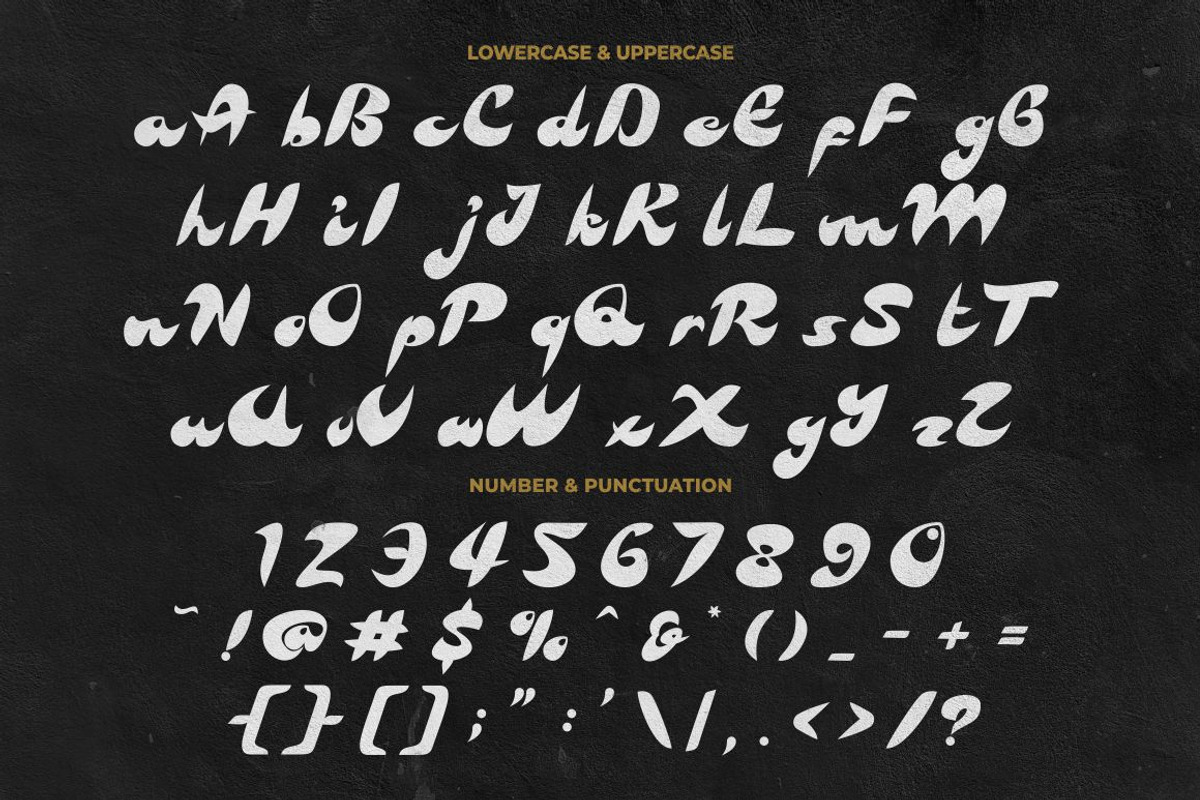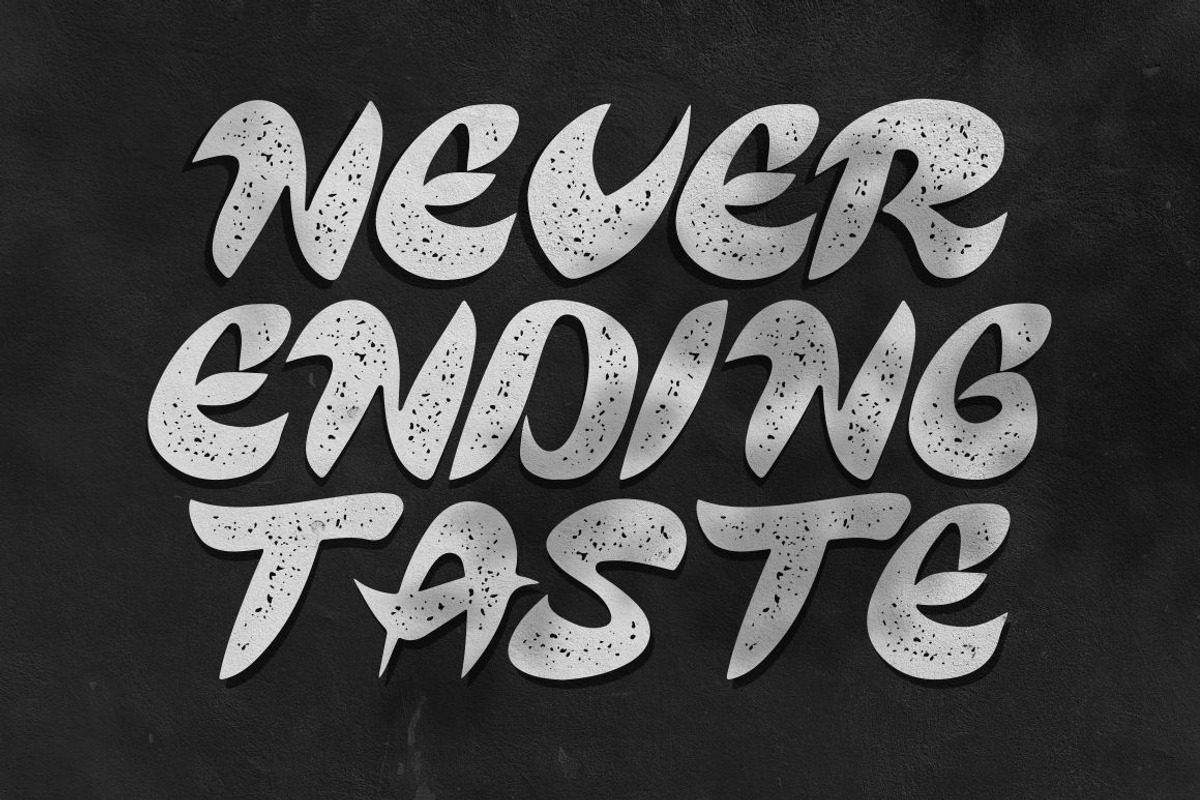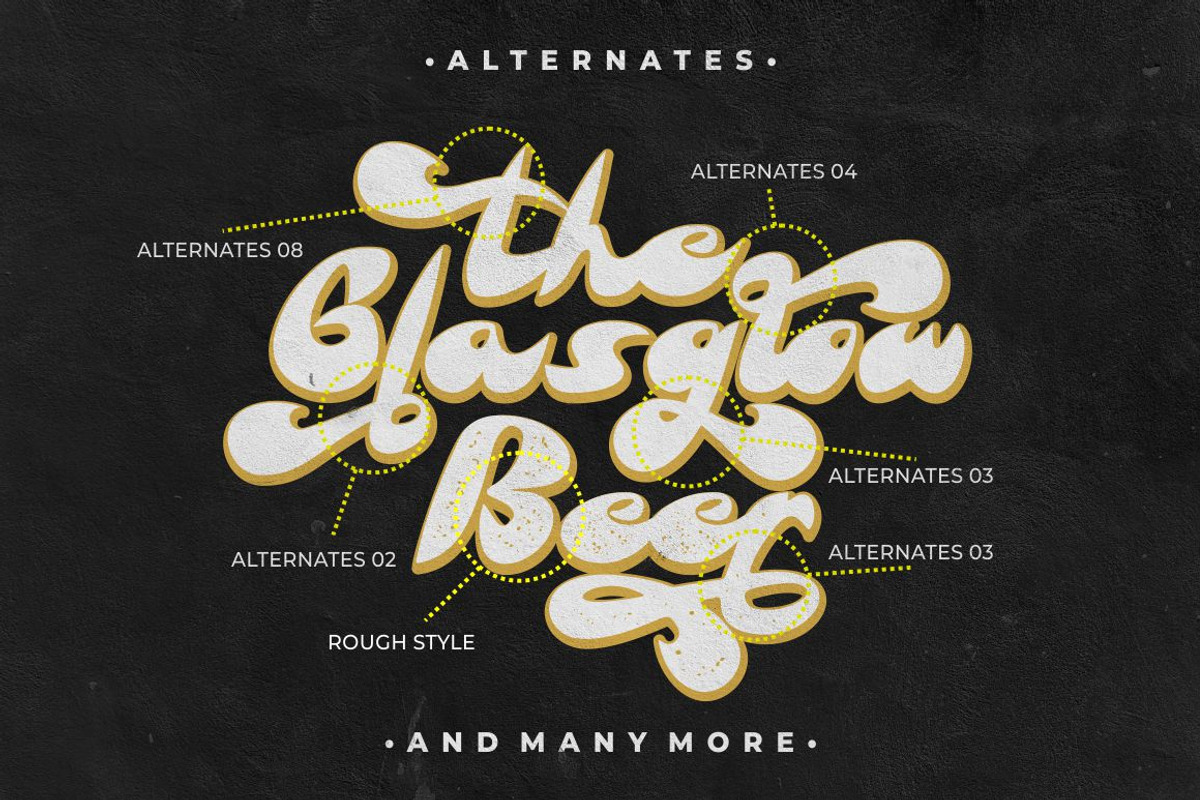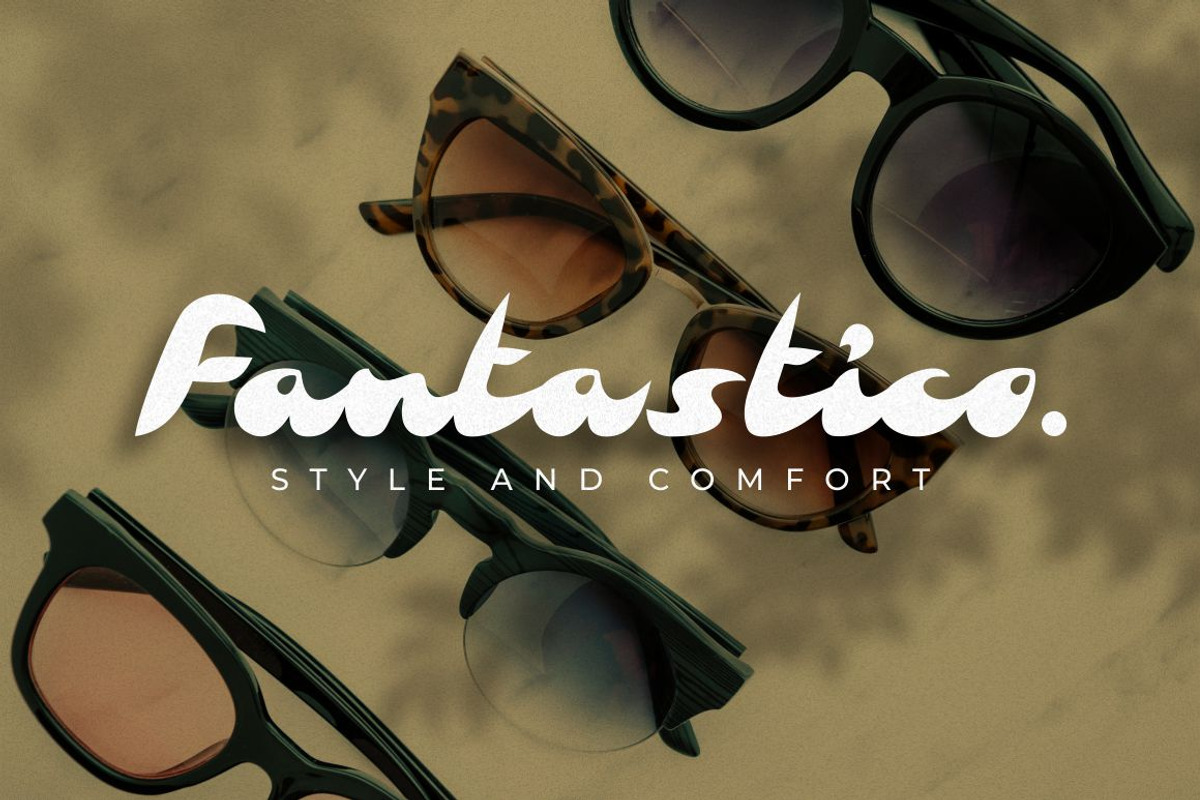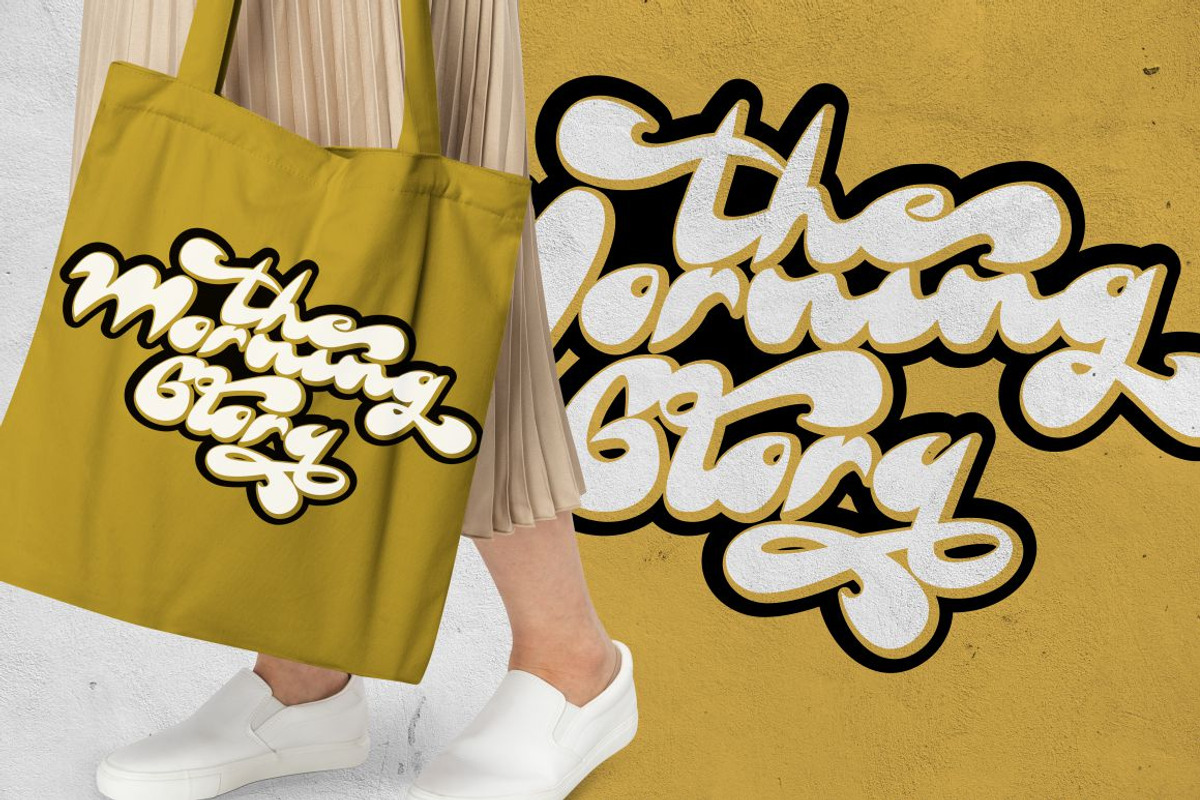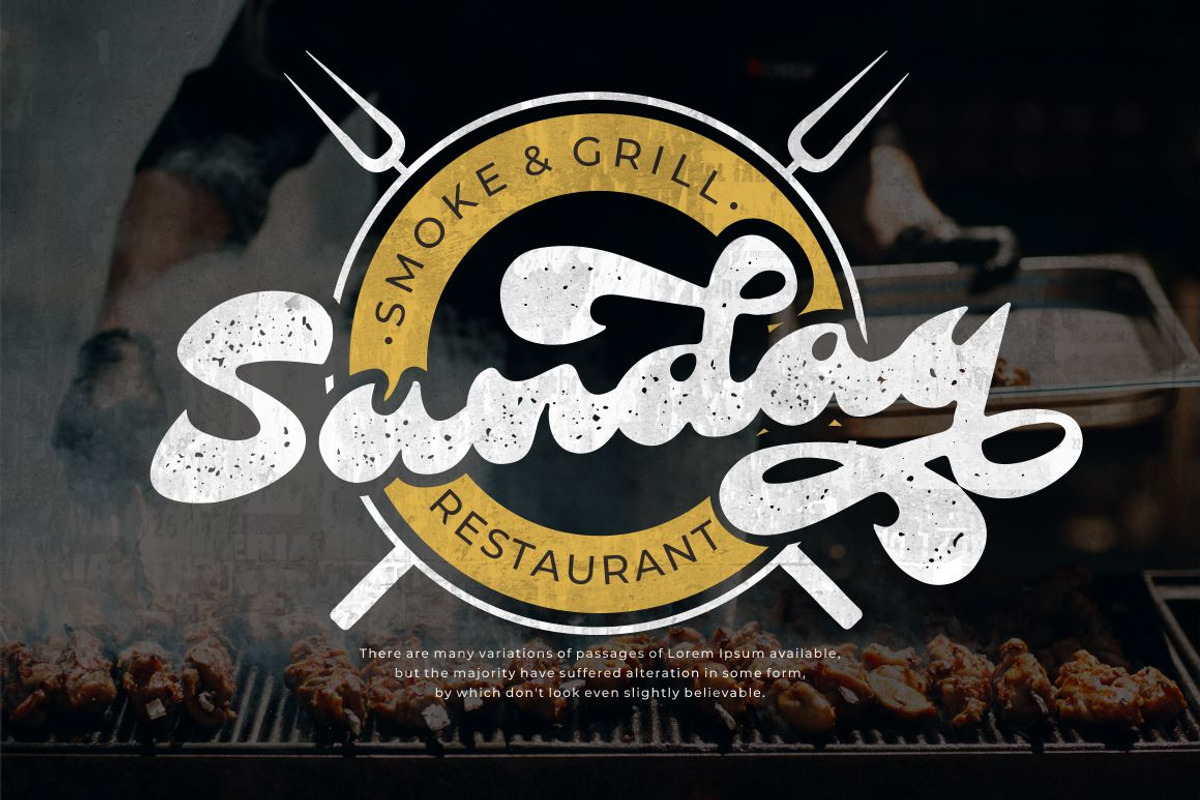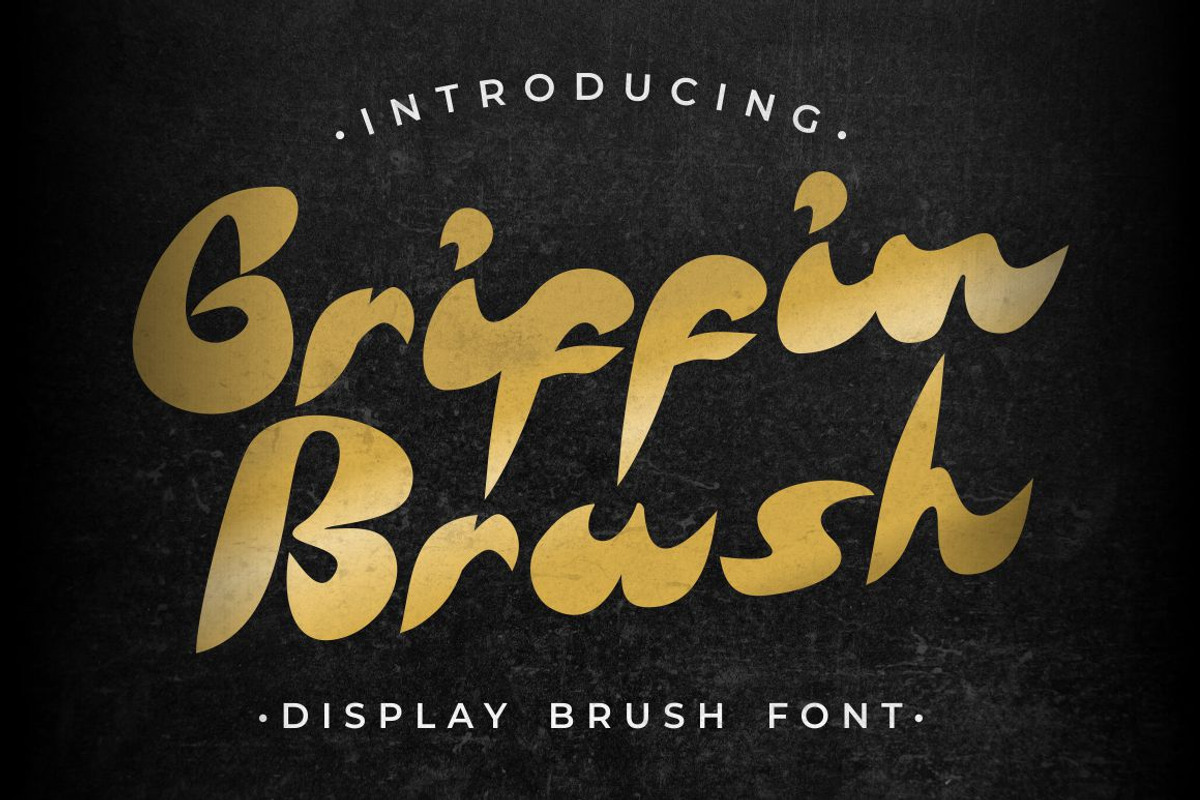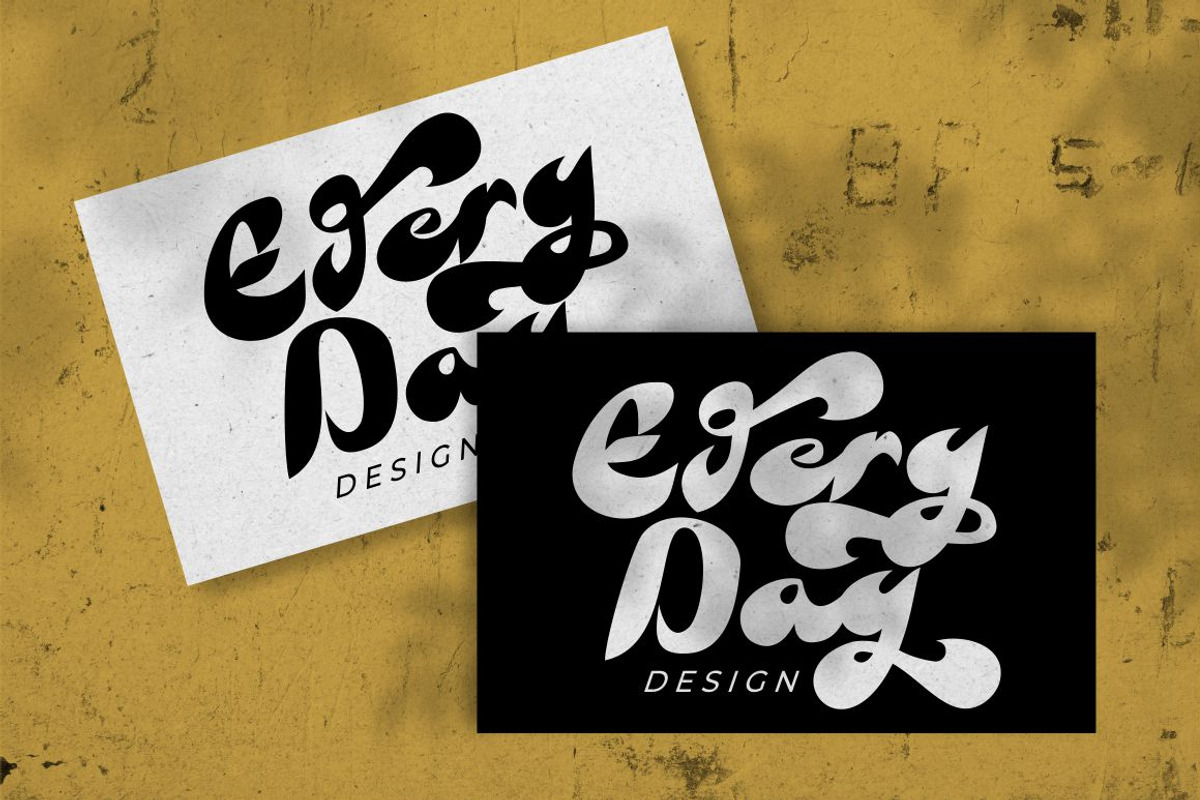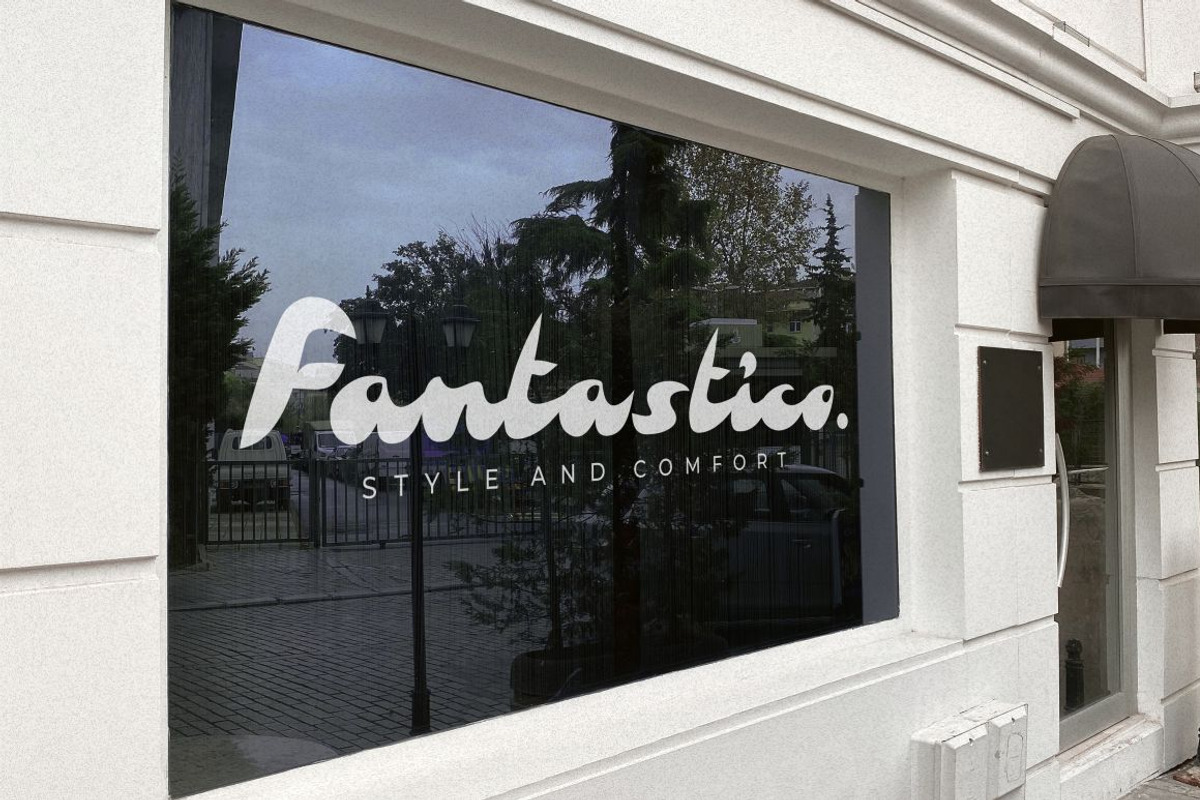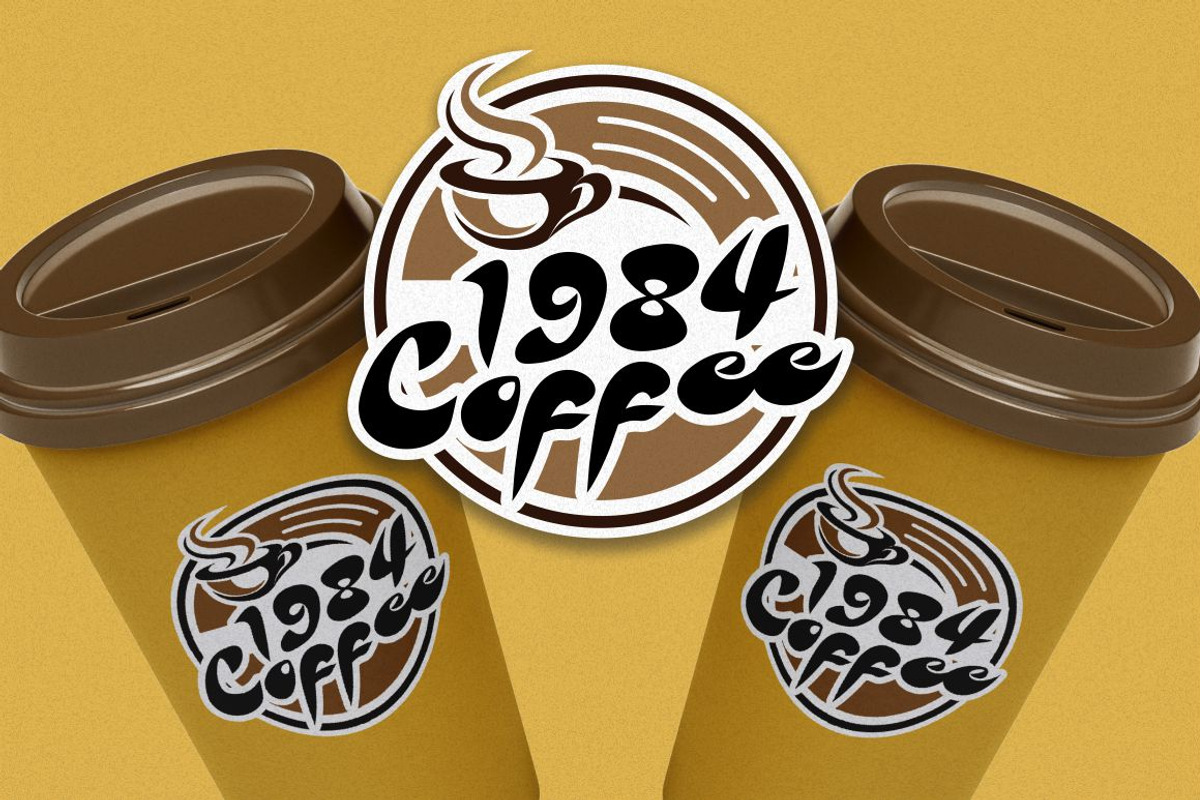
Griffin Brush - Display Brush Font
Griffin Brush - Display Brush Font. Take your design with the "Griffin Brush" to the next level with a bold, thick and expressive font that truly looks hand painted. Griffin Brush uses authentic looking fonts and is sure to grab the attention of customers and designers alike.
You can use this font for various purposes such us story books, illustrations, comic books, t-shirts, posters, greeting cards, logos, branding, stickers, svg, crafting and all for display purposes.
The alternative characters were divided into several Open Type features such as Swash, Stylistic Sets, Stylistic Alternates, Contextual Alternates, and Ligature. The Open Type features can be accessed by using Open Type savvy programs such as Adobe Illustrator, Adobe InDesign, Adobe Photoshop Corel Draw X version, And Microsoft Word. This font is also support multi language.
Comes with feature :
- Opentype (Alternates And Ligatures)
- Number, Punctuation And Symbols
- Multilanguage Support.